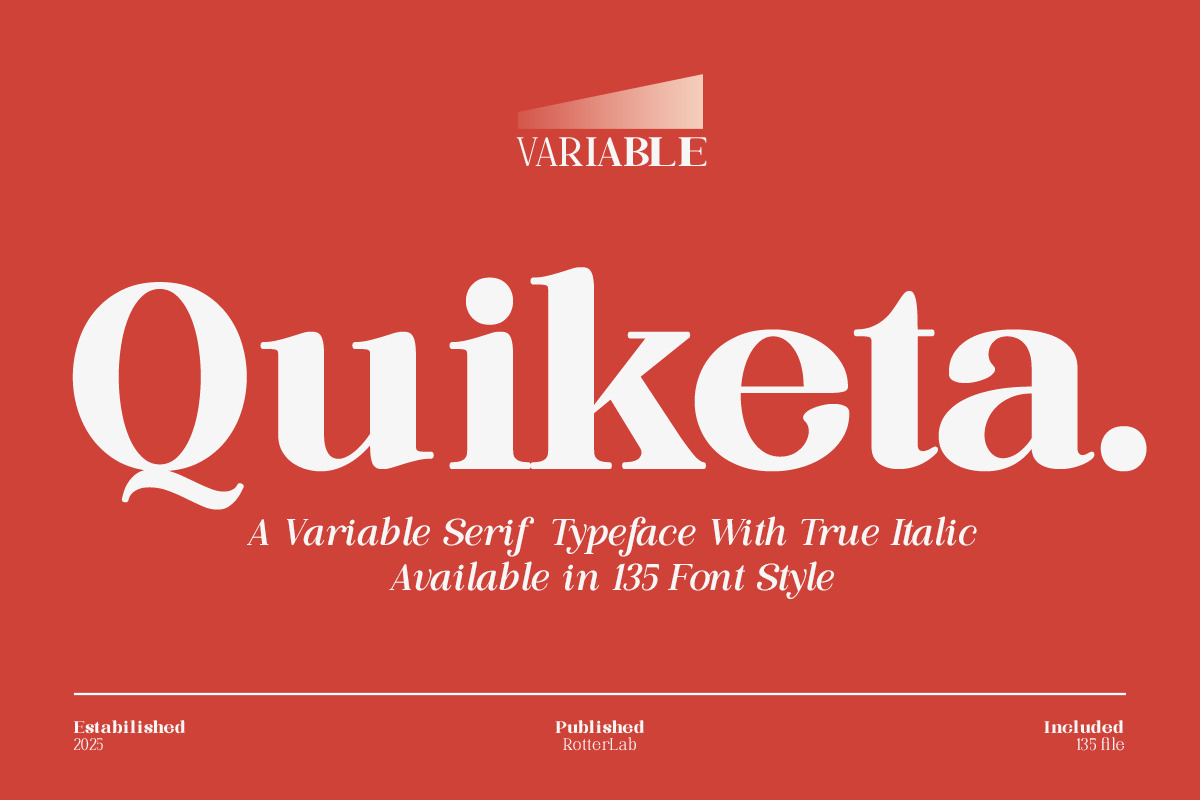
Quiketa Family (135 Font)
Quiketa is a variable serif typeface designed with an elegant and flexible character. Featuring true italics, this font offers authenticity in an italic style that isn't simply mechanically tilted, but rather specifically designed to maintain aesthetics and legibility. Quiketa is perfect for a variety of design needs, from editorial and branding to visual displays requiring a modern, classic touch. Equipped with 135 font styles, Quiketa gives designers the freedom to customize the typography to suit the project's needs. This flexibility makes it easy to integrate into various design contexts, both formal and creative. Quiketa is an ideal choice for those seeking a balance between traditional commitment and modern power in typography.